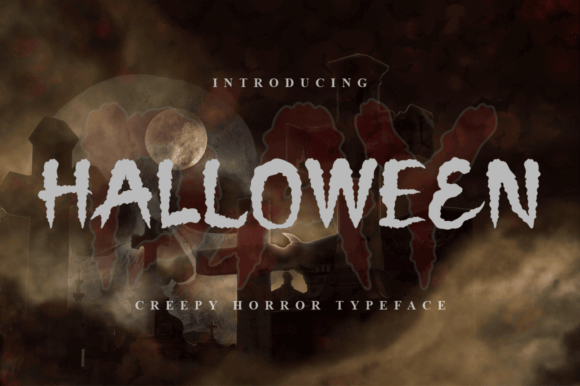
Introducing Halloween Day Font, the ultimate choice for a modern resume! Created by the renowned MaxWyner Shop, this captivating display font is specifically designed to elevate your documents and make a lasting impression.
With Halloween Day Font, your resume will stand out from the crowd with its bold, sharp, and angular style. Its unique combination of darkness and allure creates a mysterious aura that is guaranteed to draw the eye of potential employers.
This font's spine-tingling atmosphere is perfect for those seeking a horror-inspired setting, making it ideal for creative professionals in the entertainment industry or anyone looking to add an element of excitement to their resume.
But Halloween Day Font offers more than just its visually captivating appearance. It is PUA encoded, meaning you have effortless access to all its glyphs and swashes. This allows you to effortlessly customize and personalize your resume, making it truly yours and showcasing your individuality.
Stand out with Halloween Day Font and leave a lasting impression on recruiters. Its captivating and modern design will not only showcase your skills and qualifications but also evoke a sense of curiosity and intrigue.